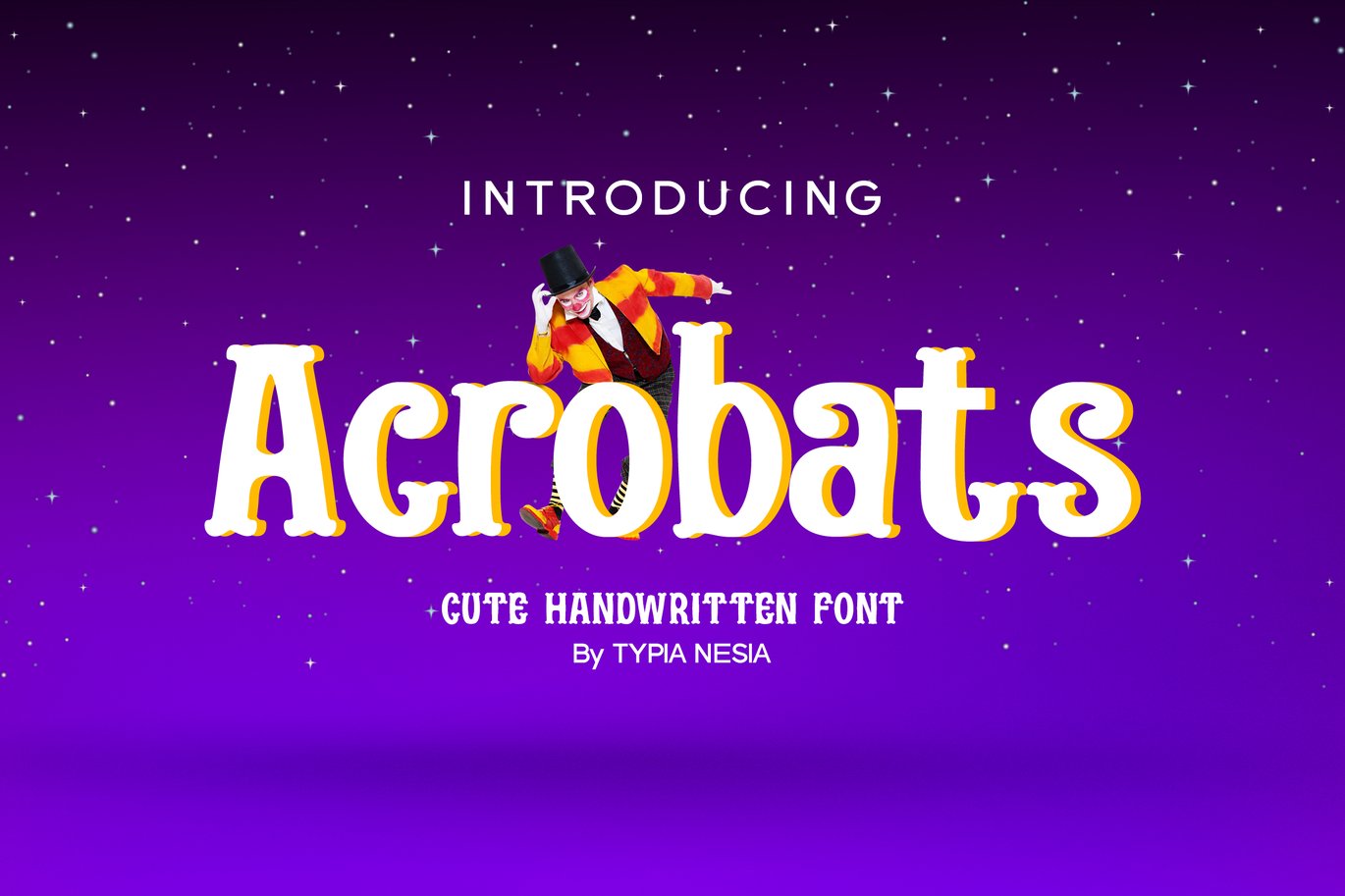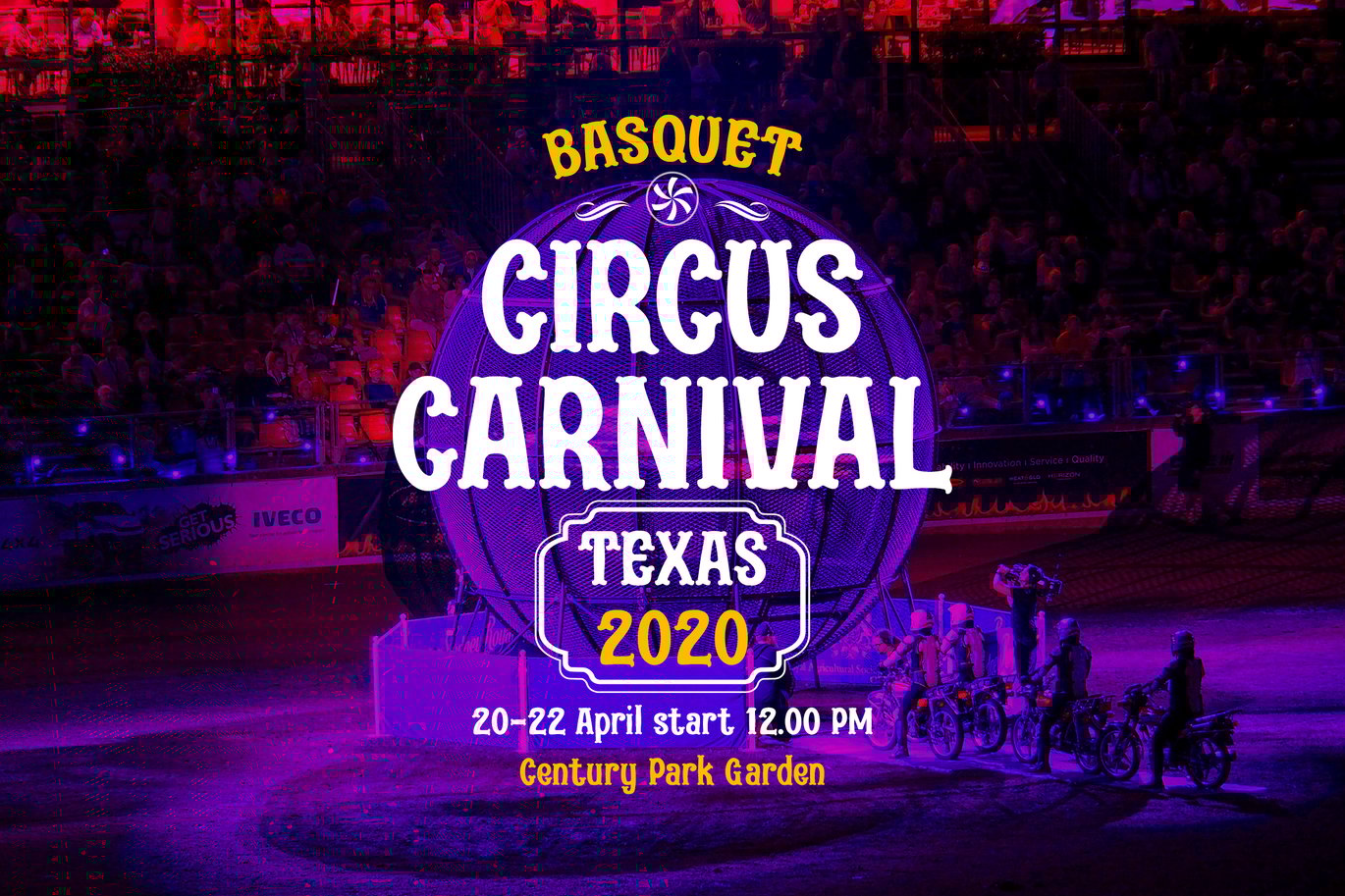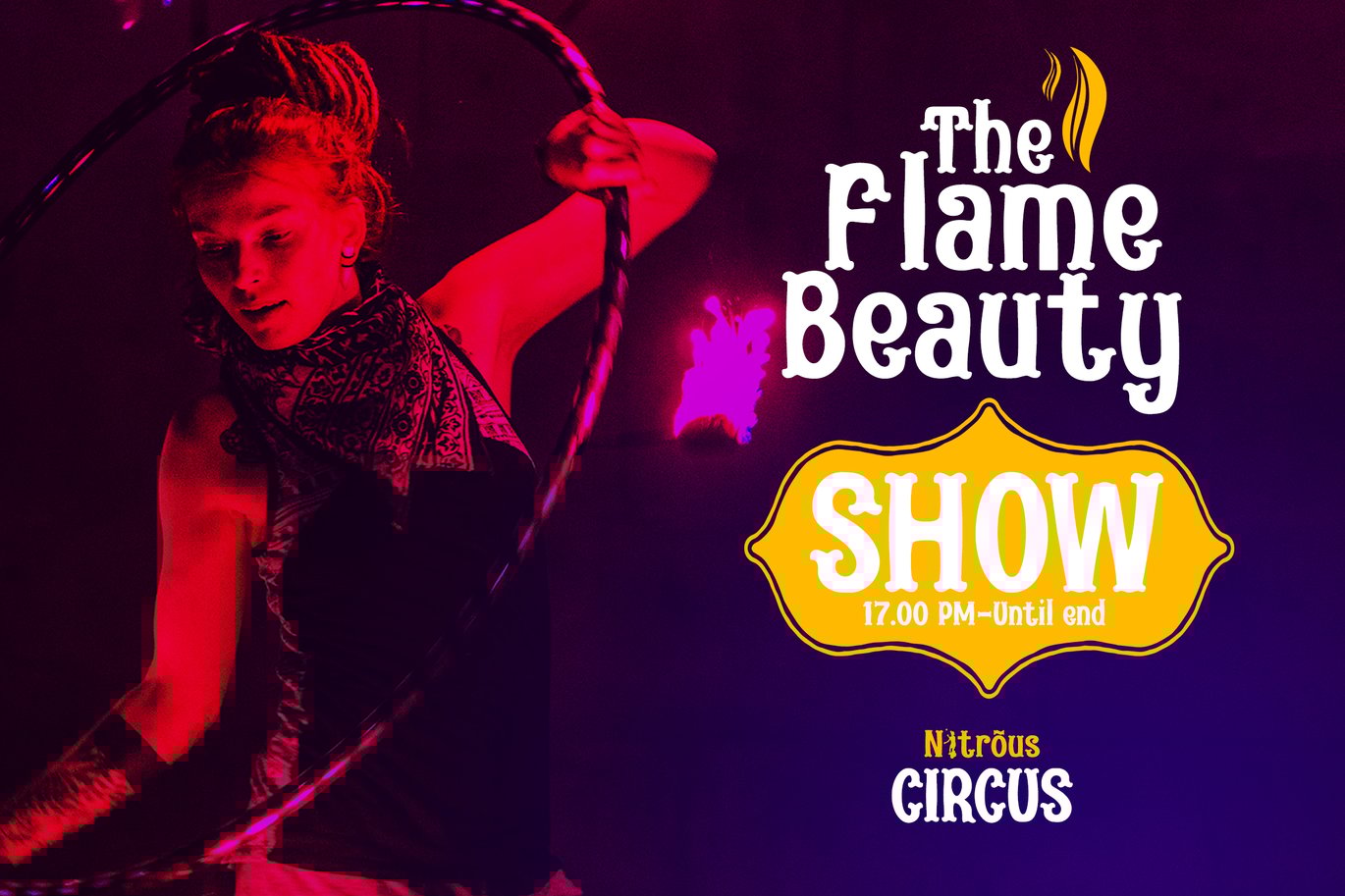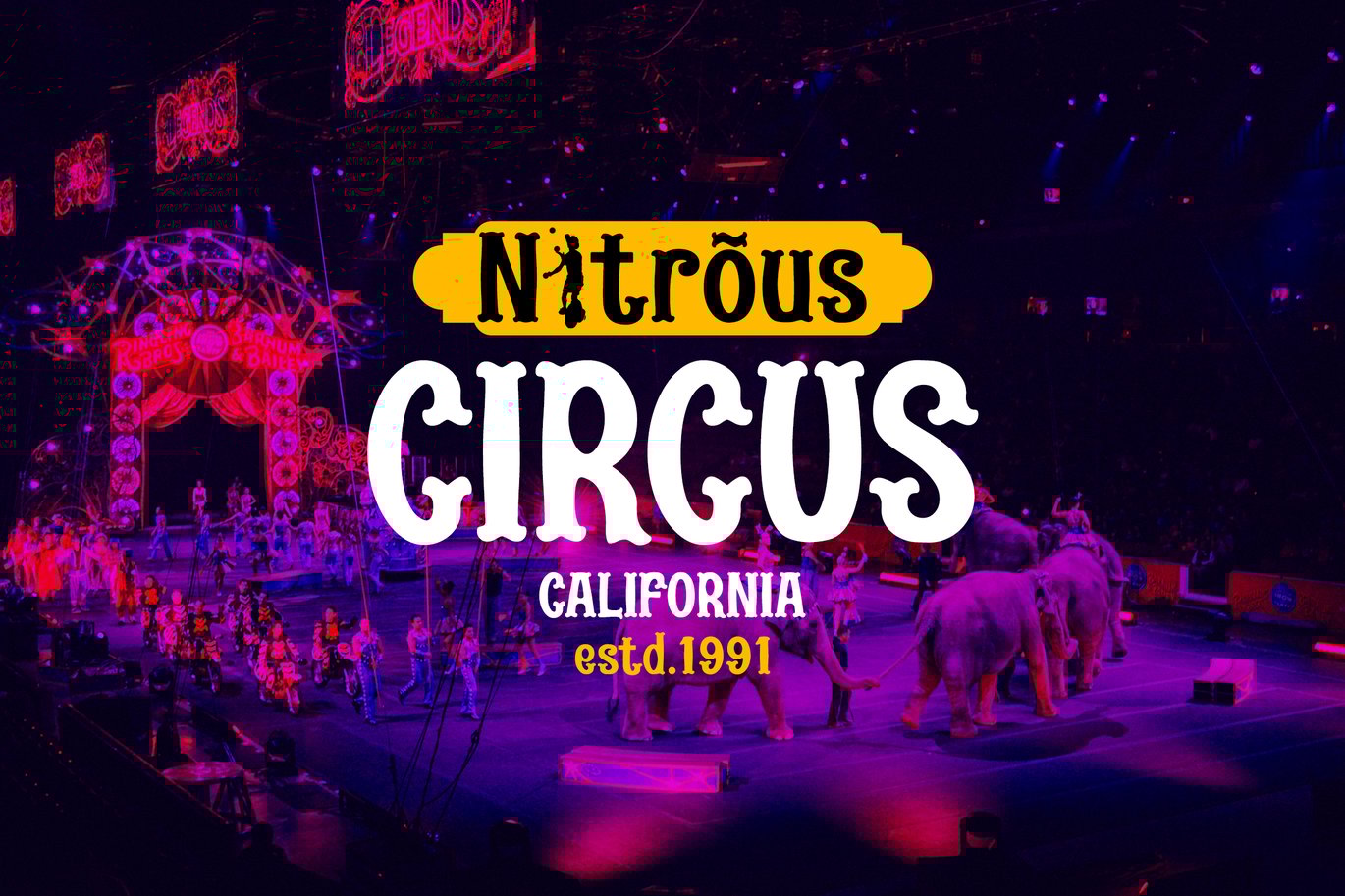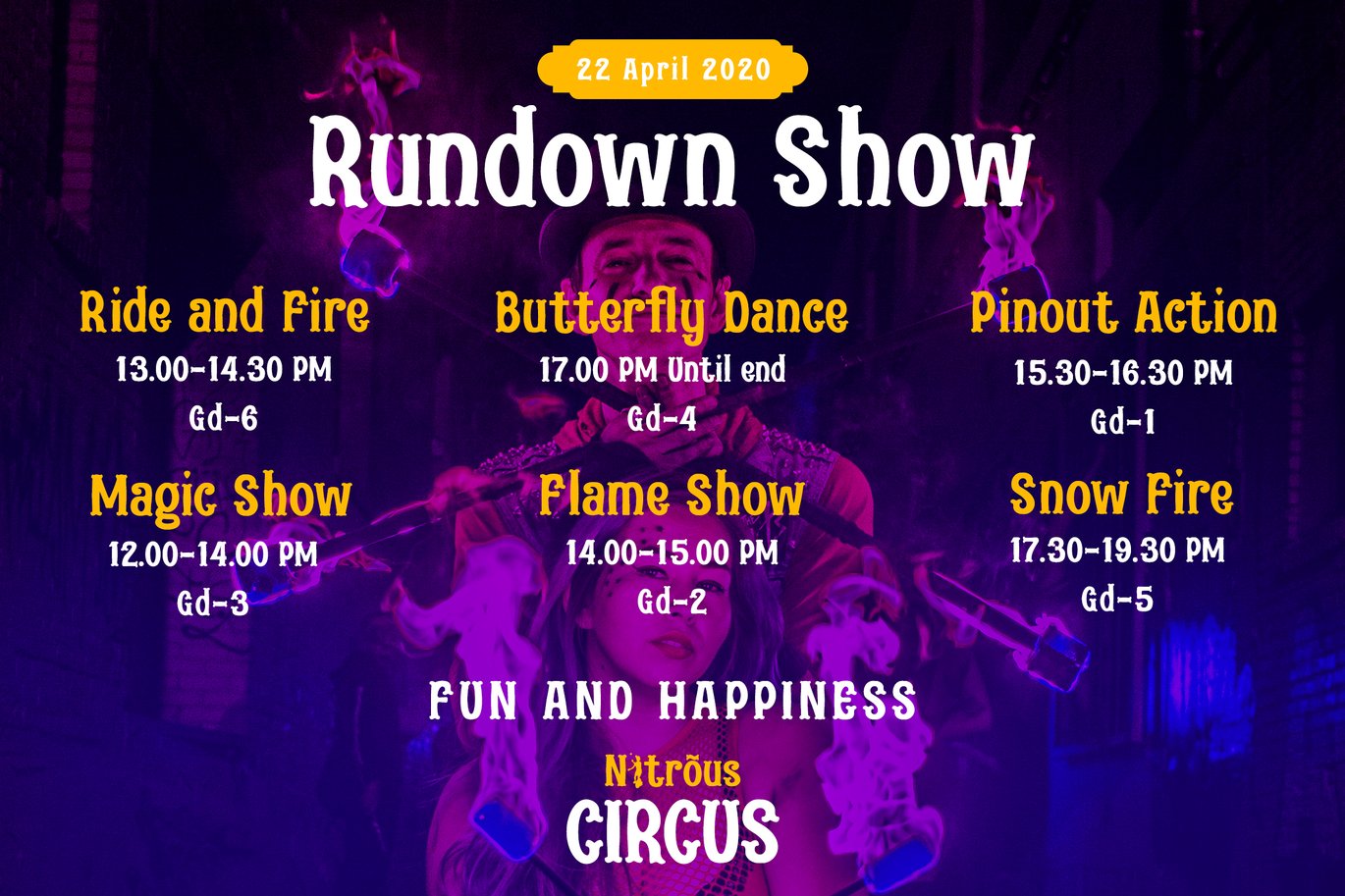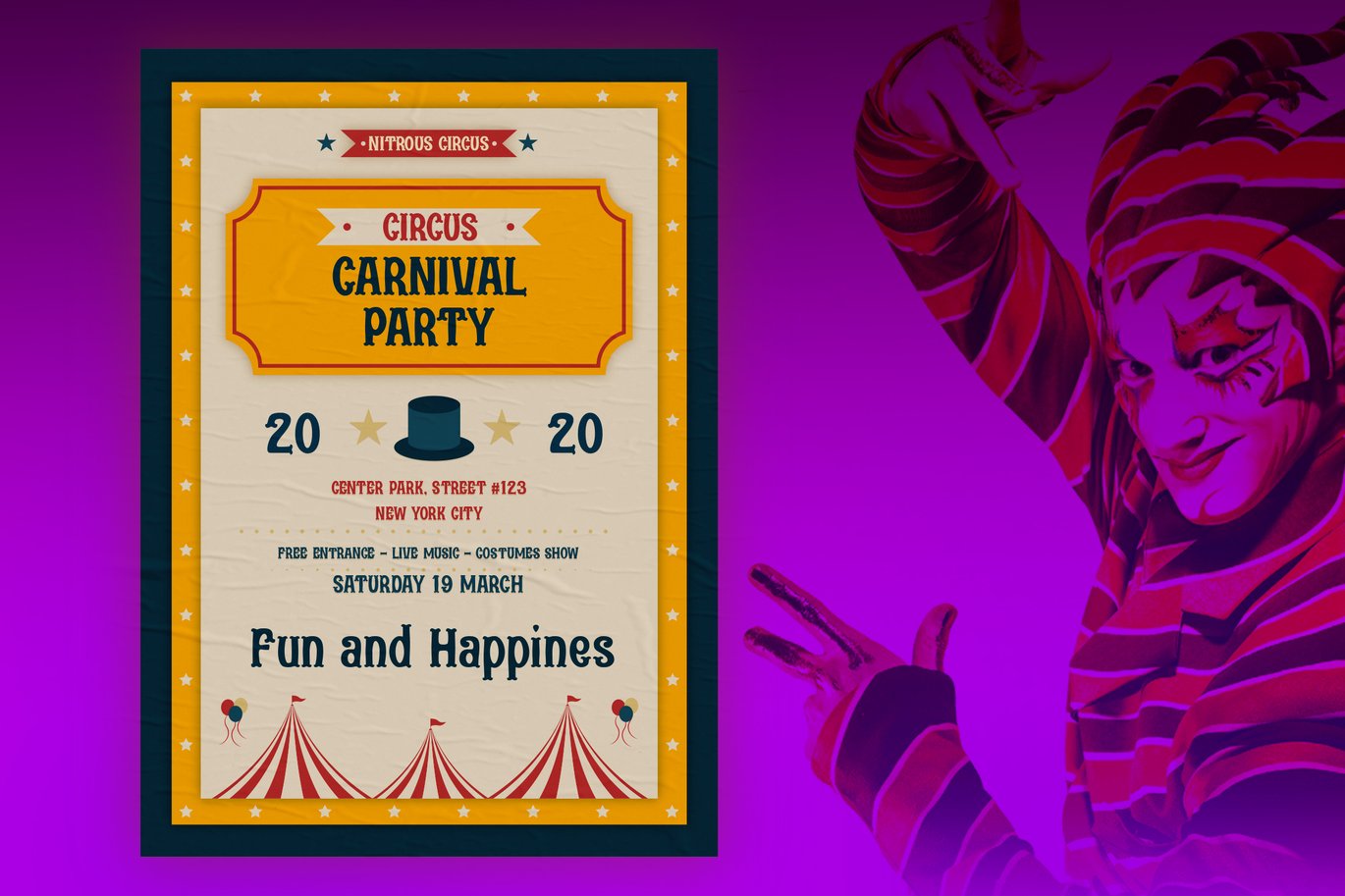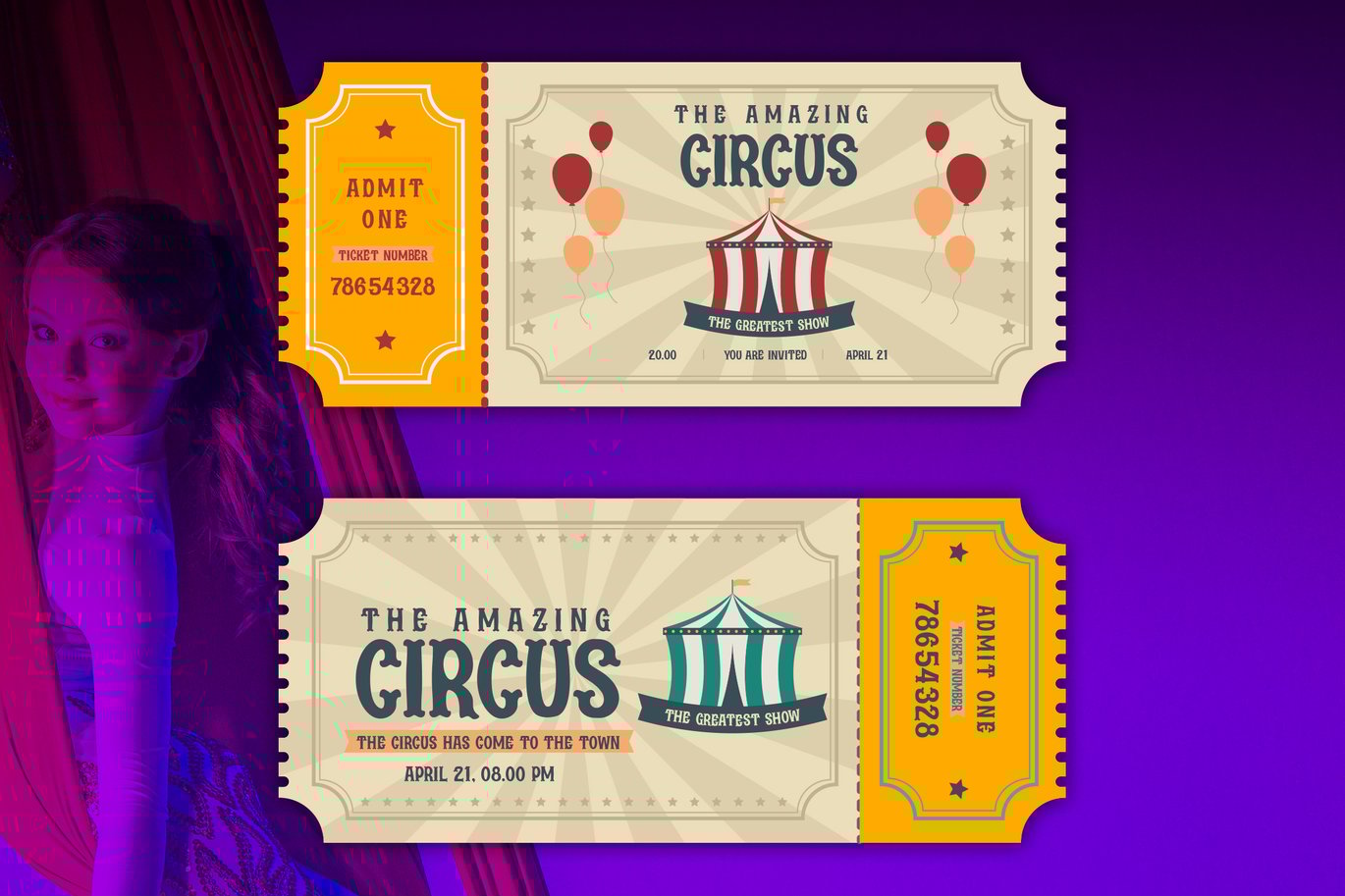
Acrobats – Circus Font
Acrobats – Circus Festival Show – Display Font
Acrobats is Circus Display Font is perfect for your up coming projects. Such as logo branding, editorial design, stationery design, blog design, modern advertising design, card invitation, art quote, home decor, book/cover title, special events ( wedding, birthday, etc ), and any more.